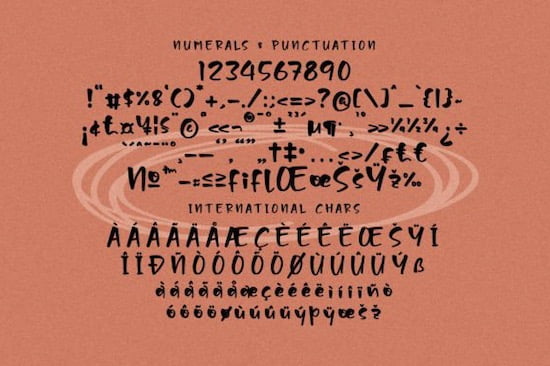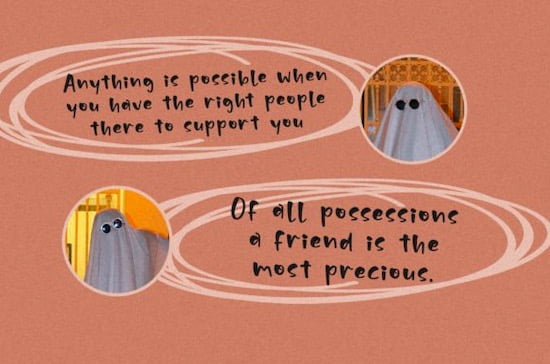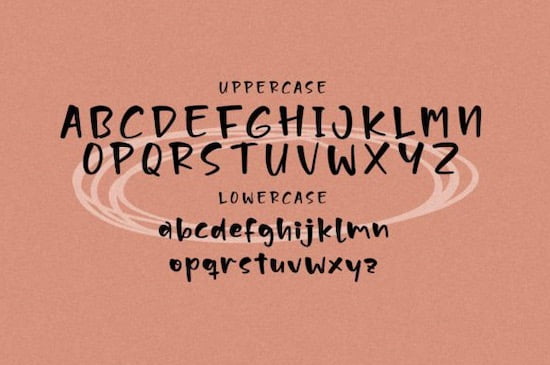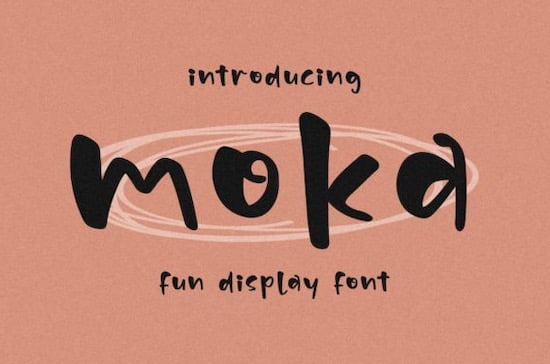
Moka Font
Moka is a classy and cheerful display font that has a funny handwritten look. It was designed and published by Glorytype Studio.
It’s suitable for any designs such as logos, branding projects, homeware designs, product packaging, mugs, quotes, posters, shopping bags, t-shirts, book covers, name cards, invitation cards, greeting cards, labels, photography, watermark, special events, and all your other lovely projects that need a beautiful script taste.
Moka Display Script Font